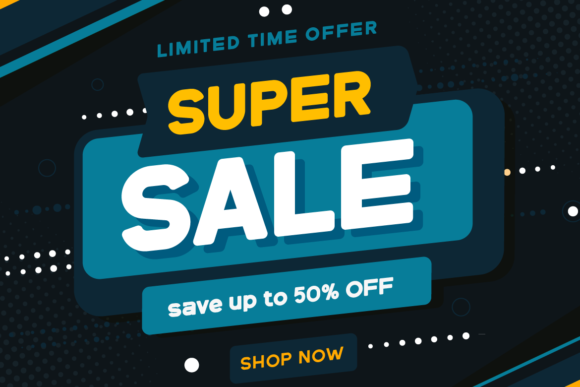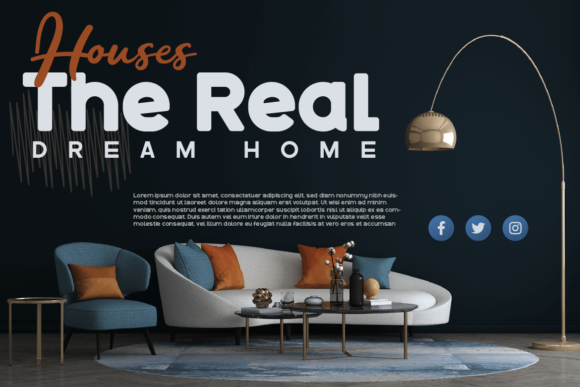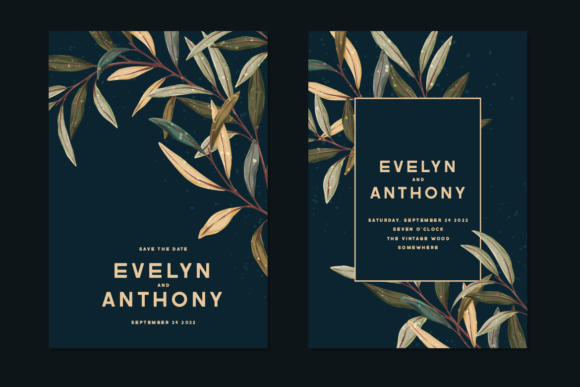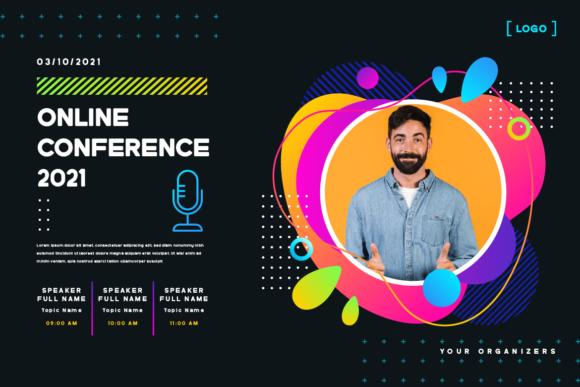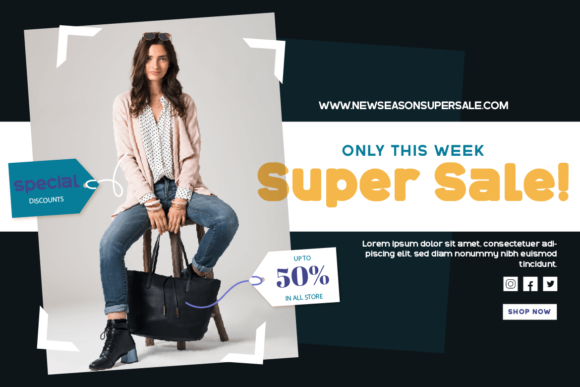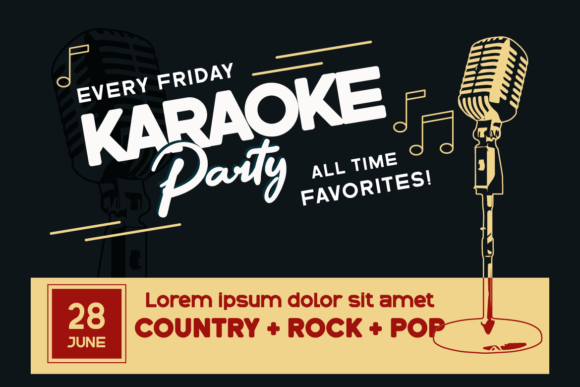
Goda Font: The Ultimate Display Font for Stunning Creations
In the world of typography, a good font can make all the difference in creating a visually appealing design. If you’re a designer, crafty enthusiast, or simply someone who loves to dabble in creative projects, you’re probably always on the lookout for the perfect font to elevate your work. That’s where Goda Font comes in – a bold, thick lettered, and cool display font that’s sure to take your creations to the next level.
What is Goda Font?
Goda Font is a expertly designed display font that’s perfect for making a statement. Its bold and thick lettering gives it a unique, eye-catching quality that’s sure to grab attention. Whether you’re working on a logo, poster, social media graphic, or any other design project, Goda Font is the perfect choice for adding a touch of personality and style.
Key Features of Goda Font
- Bold and Thick Lettering: Goda Font features bold and thick lettering that gives it a rugged, edgy feel.
- Cool Display Font: This font is specifically designed to be used as a display font, making it perfect for headlines, titles, and other attention-grabbing elements.
- Highly Versatile: Goda Font can be used on a wide range of design projects, from logos and posters to social media graphics and more.
- Easily Readable: Despite its bold and thick lettering, Goda Font is still highly readable, even at smaller sizes.
Why Choose Goda Font?
So why should you choose Goda Font for your next design project? Here are just a few reasons:
- Adds Personality to Your Design: Goda Font has a unique, edgy feel that can add a touch of personality to your design.
- Grabs Attention: The bold and thick lettering of Goda Font makes it perfect for grabbing attention and drawing the eye.
- High-Quality Design: Goda Font is expertly designed to ensure that it looks great on any design project.
Tips and Tricks for Using Goda Font
Here are a few tips and tricks to keep in mind when using Goda Font:
- Use it as a Statement Piece: Goda Font is perfect for making a statement, so use it sparingly to add emphasis to your design.
- Experiment with Colors: Goda Font looks great in a variety of colors, so don’t be afraid to experiment and find the perfect hue for your design.
- Pair it with Other Fonts: Goda Font pairs well with a variety of other fonts, so try combining it with some of your other favorites.
In conclusion, Goda Font is a bold, thick lettered, and cool display font that’s perfect for adding a touch of personality and style to your design projects. With its highly versatile design and easily readable lettering, Goda Font is the perfect choice for designers, crafty enthusiasts, and anyone looking to create stunning creations. So why wait? Download Goda Font today and see the difference it can make in your designs!